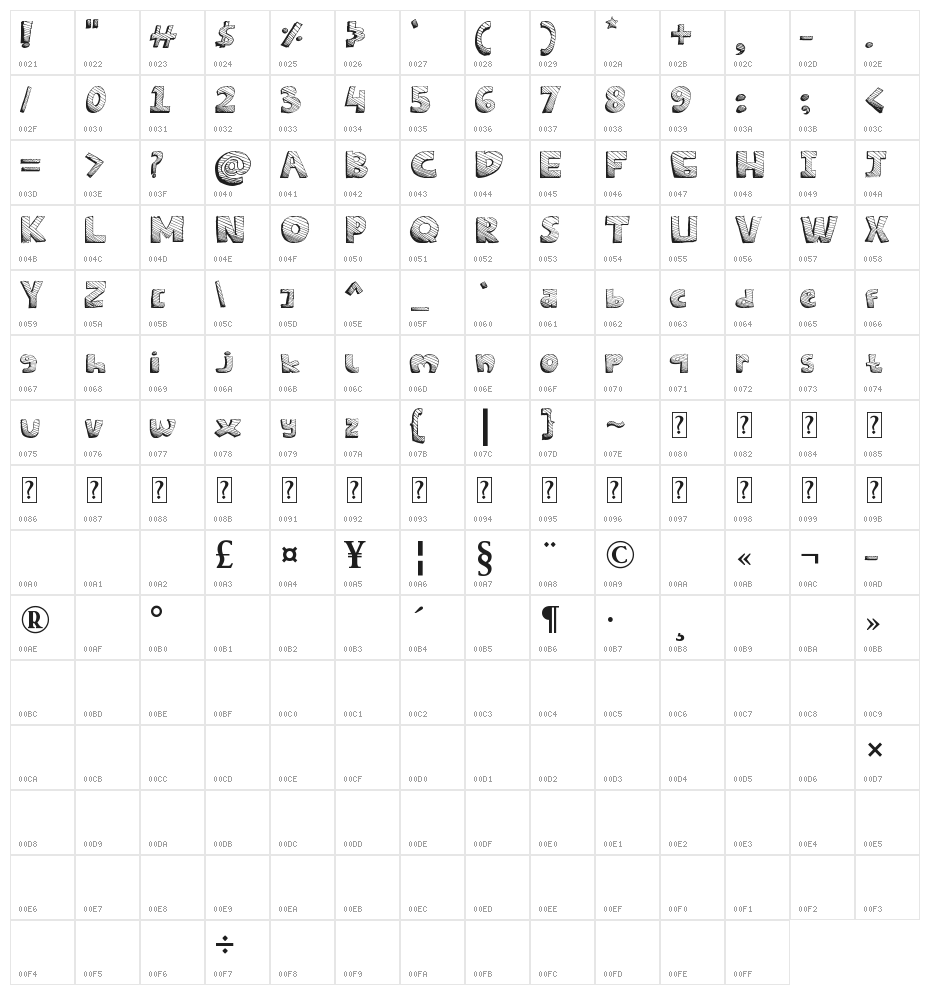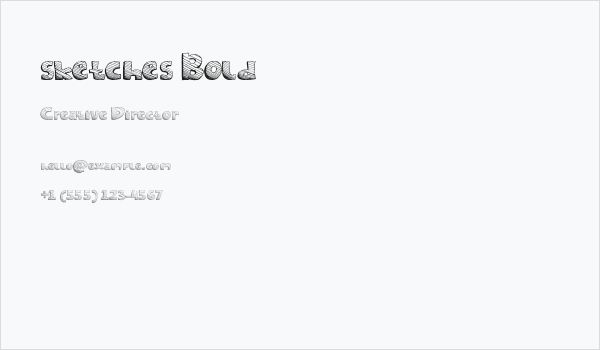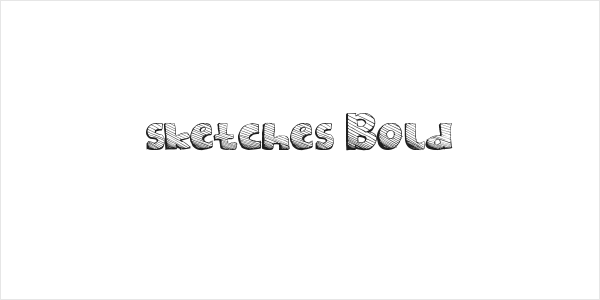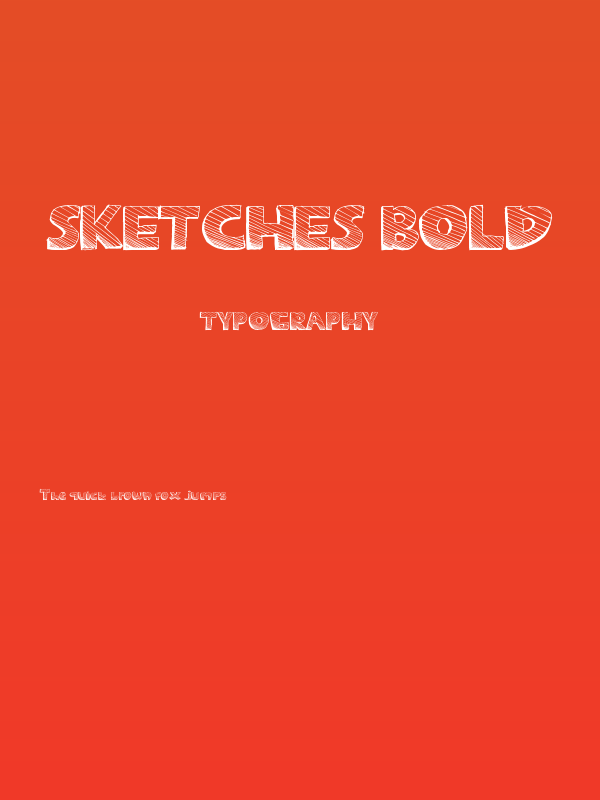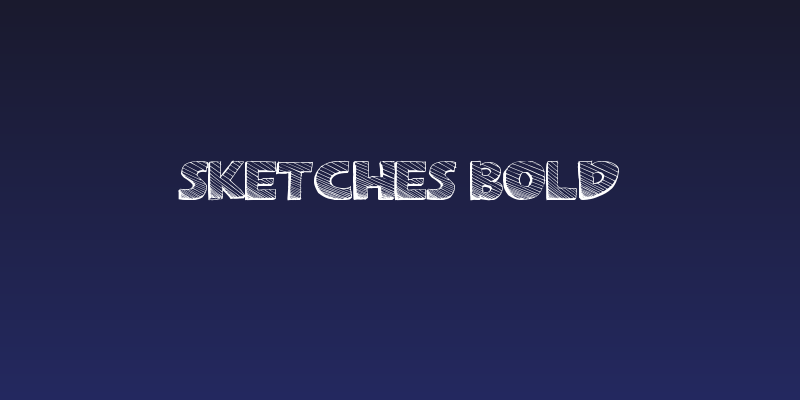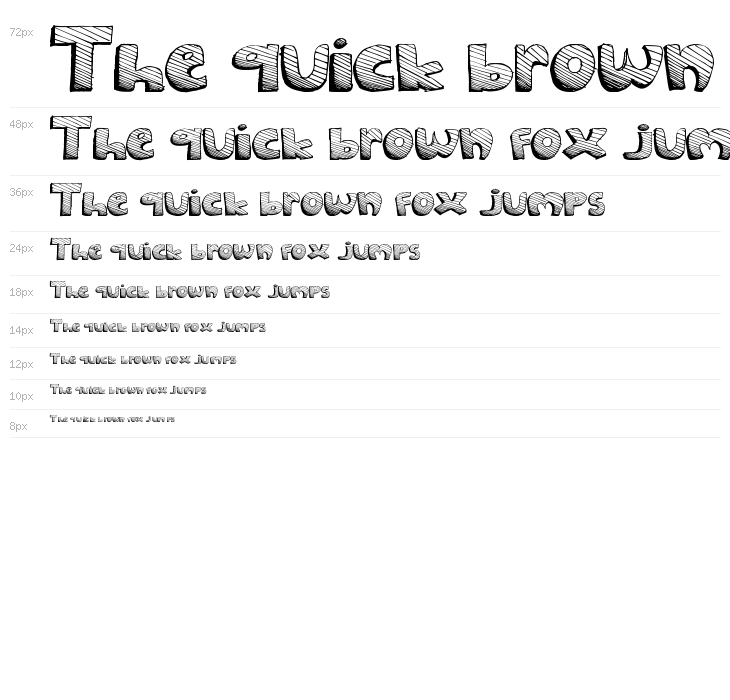
sketches Bold Font
sketches Bold Description
This font features a bold, hand-drawn style with a sketch-like appearance. Each character is filled with diagonal lines, giving it a textured, artistic feel. The letters are thick and robust, with a playful and informal vibe. The uppercase and lowercase letters maintain a consistent style, while numbers and special characters are equally expressive. This font's unique design makes it stand out, perfect for creative projects that require a touch of whimsy and individuality.
| Proposed Projects | Ideal for children's book covers, comic strips, playful branding, and artistic posters. |